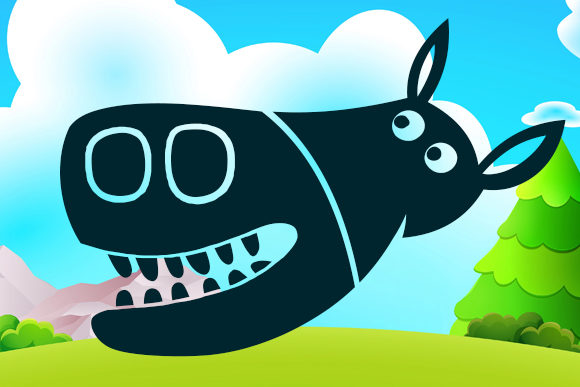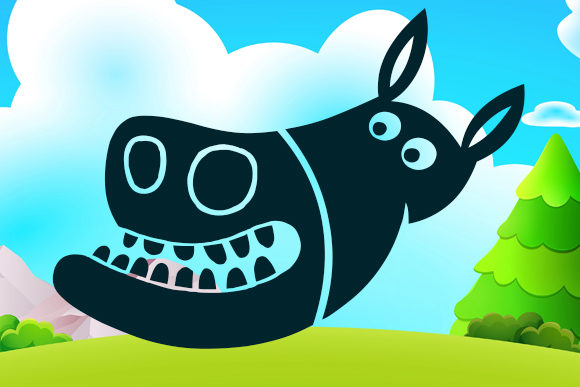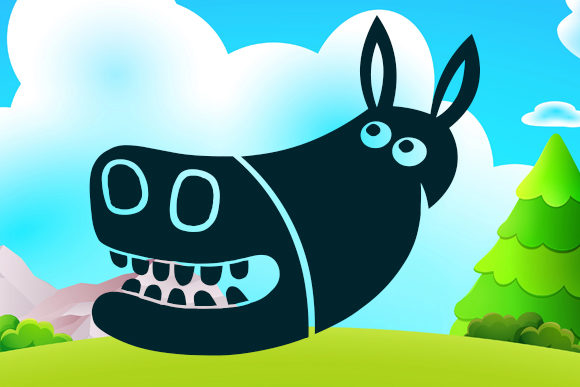
Introduction to Silly Donkey Font
Meet the Silly Donkey Font, a delightful dingbats font that’s bursting with personality. With 13 adorable donkey illustrations, this design resource is a dream come true for creatives. Whether you’re working on a children’s book, a fun social media campaign, or a quirky website, the Silly Donkey Font is sure to add a touch of whimsy and charm to your design.
Not only is the Silly Donkey Font a joy to work with, but it’s also incredibly versatile. The high-quality illustrations can be easily customized with a transparent background, making them perfect for any design project. And the best part? It’s completely free to download, so you can start using it right away.
Key Features of Silly Donkey Font
- Unique and playful design ideal for creative projects requiring a whimsical touch.
- High-quality design with transparent background, allowing for seamless integration into designs.
- Designed to be highly legible at various resolutions and sizes, making it suitable for a range of applications.
- Comes in a single weight with 500+ glyphs, including Latin and Cyrillic characters, making it a versatile design resource.
- Perfect for designers and artists working on creative projects that require a fun and quirky touch.
Honest Review: Silly Donkey Font
What works well: ✨ The Silly Donkey Font is available for free download, making it a great resource for those on a budget. The font is also highly customizable, with a transparent background that allows for easy layering and blending with other design elements. This makes it perfect for creative projects that require a playful touch.
Overall, I’m impressed with the Silly Donkey Font. It’s a fun and creative design resource that’s perfect for those looking to add a playful touch to their projects. With its high-quality design and transparent background, it’s a great addition to any designer’s toolkit.
Tips for Getting the Most Out of Silly Donkey Font